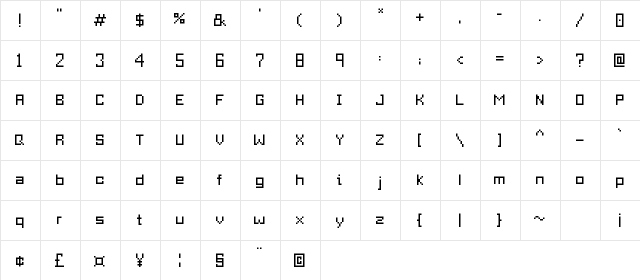
7pixelsOfPerfect Medium
Design Context for 7pixelsOfPerfect Typeface
7pixelsOfPerfect celebrates the constraints of early digital type, turning pixel geometry into a distinctive and immediately recognisable style.
Well-suited to indie game interfaces, retro computing aesthetics, and pixel art-adjacent design work.
Pro Tip: Use 7pixelsOfPerfect at sizes that align with its pixel grid for the sharpest rendering — scaling to non-integer multiples can introduce unwanted blur.